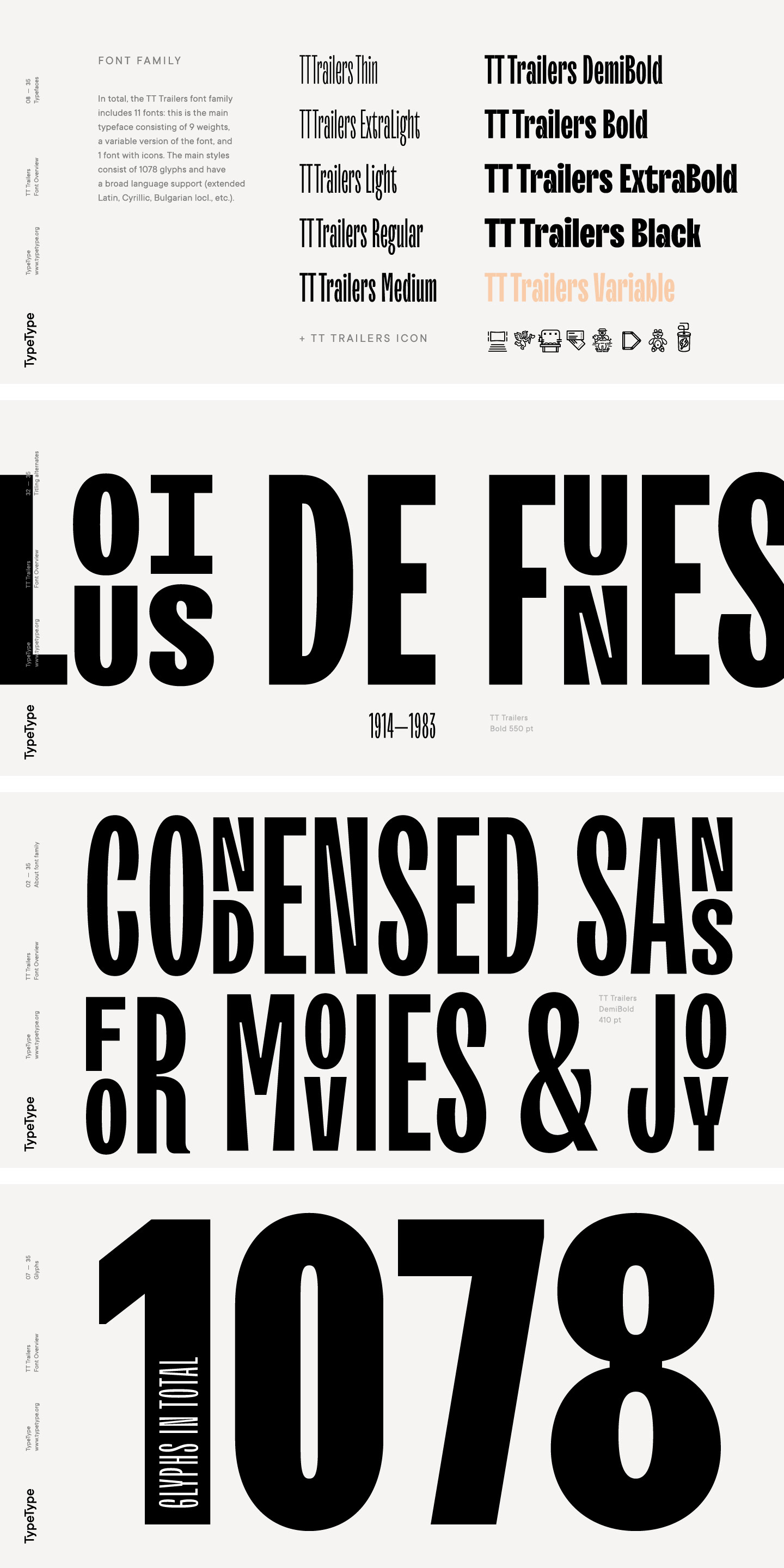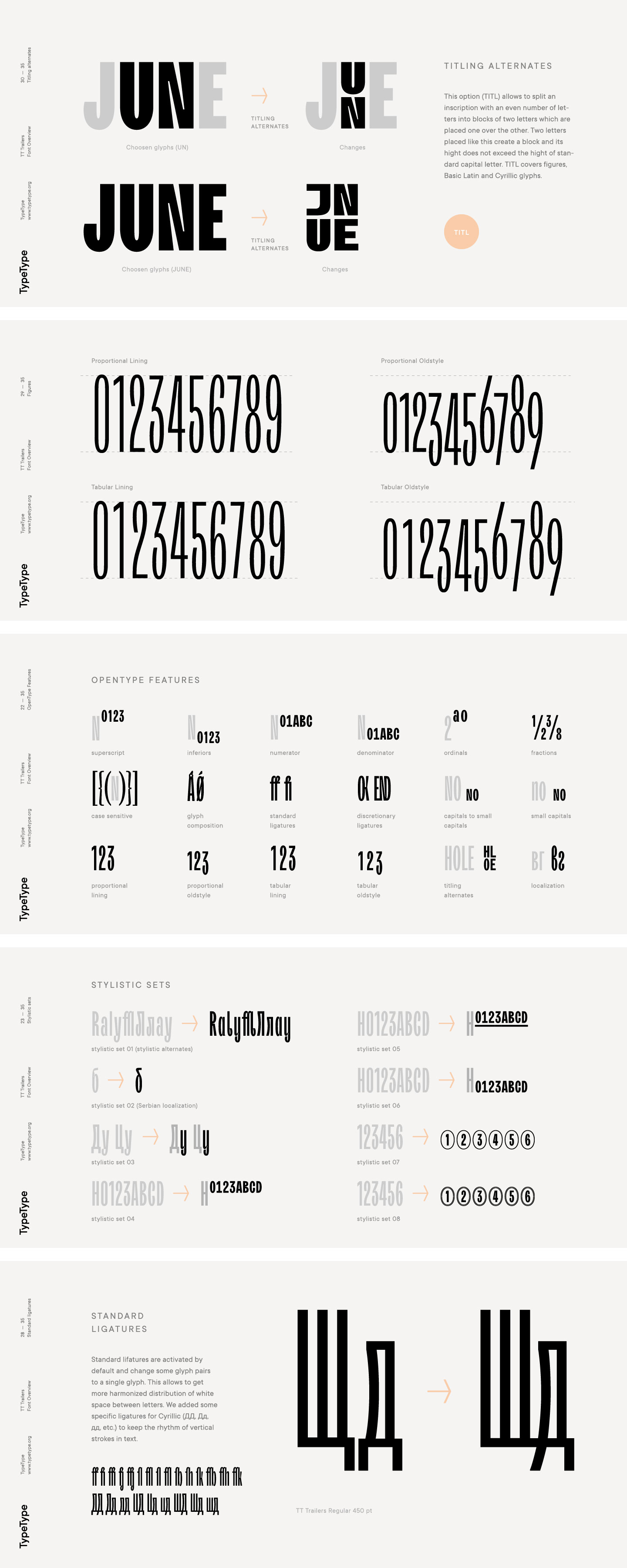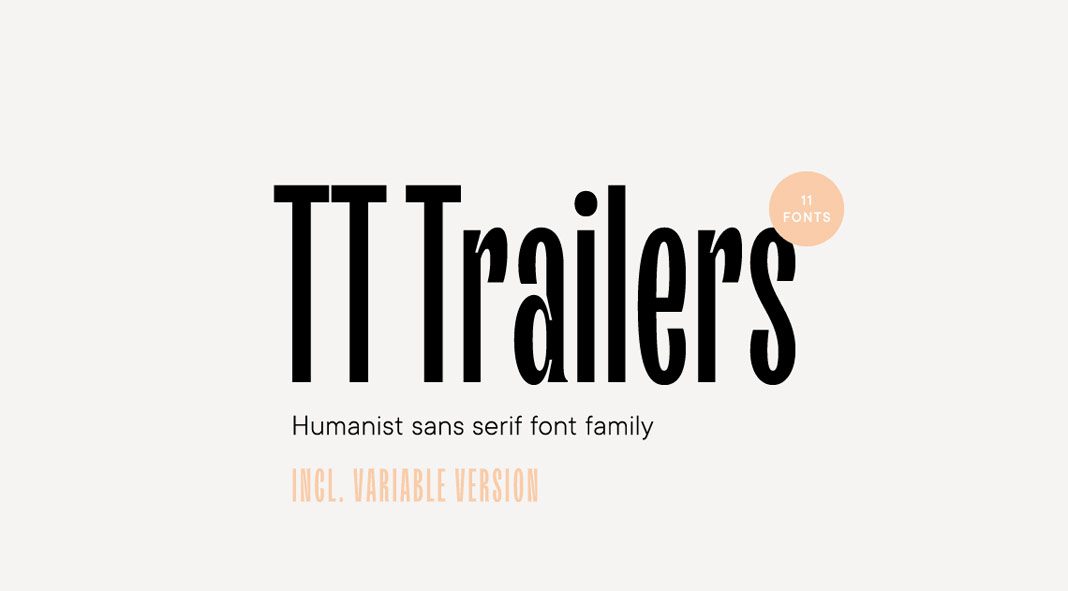
TT Trailers, a humanist sans-serif font family published by foundry TypeType.
The TT Trailers font family was designed by the TypeType team and Vika Usmanova with the idea in mind to create a completely new generation of condensed typefaces for use in movie credits and typographic posters designs. They decided to use “loops” in the design of many letters, which, together with the contrast and humanist style give the font family a nice vintage touch inspired by cinema posters of the 1960s. Learn more below or click on one of the following links to purchase this unique font family.
The TT Trailers font family comes with 11 fonts including the main typeface consisting of nine styles and a variable version of the font as well as one font with icons. The main styles consist of 1078 glyphs and support multiple languages including extended Latin, Cyrillic, Bulgarian, etc. There is also a large number of OpenType features including many super stylish ligatures, alternates, oldstyle figures, and many more. For further information, just click on one of the following links.